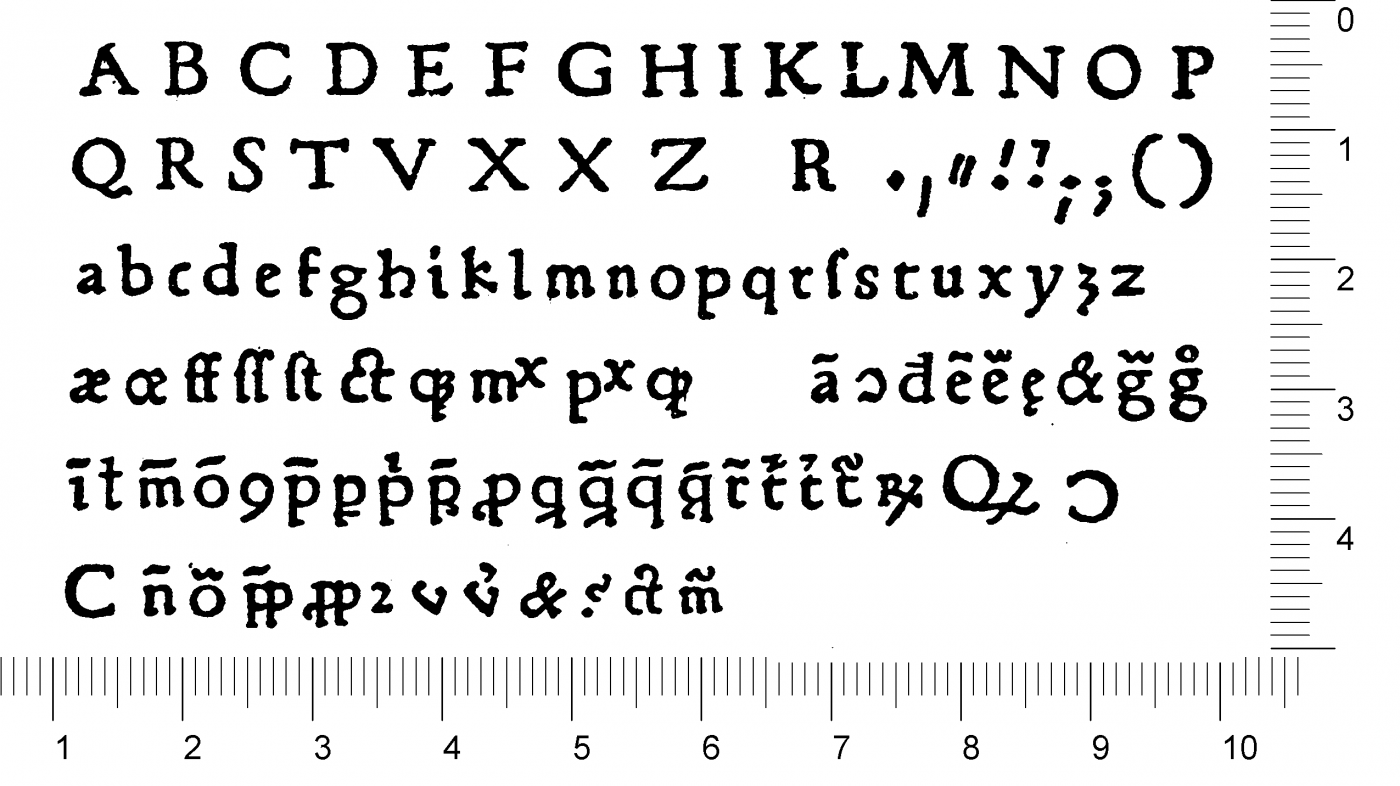
http://ilovetypography.com/2016/04/18/the-first-roman-fonts/ The first French roman typeface. Type 1:116R, âSorbonne Typeâ by Ulrich Gering, Martin Crantz, & Michael Friburger. Paris, 1470.